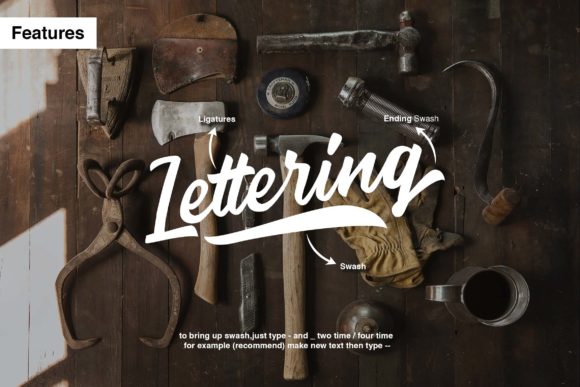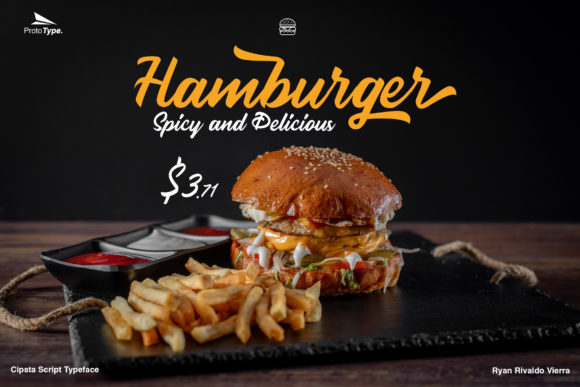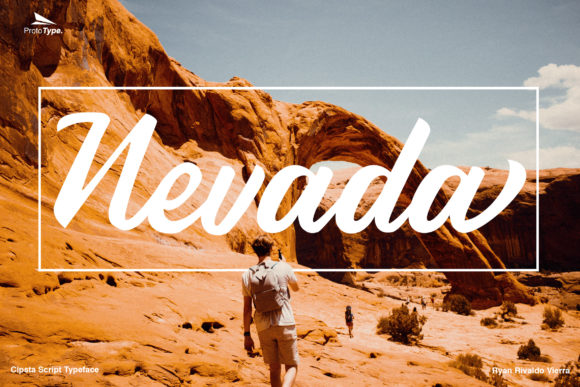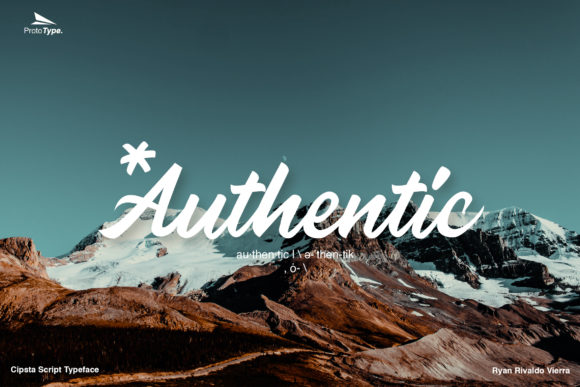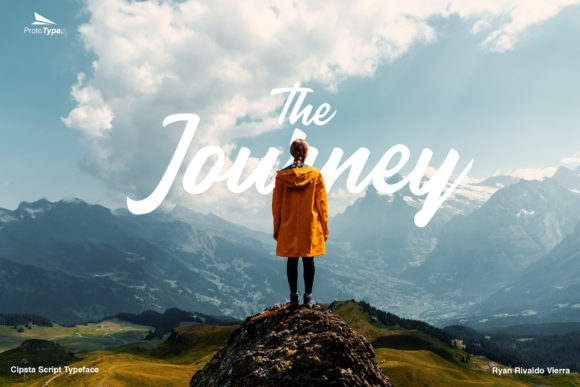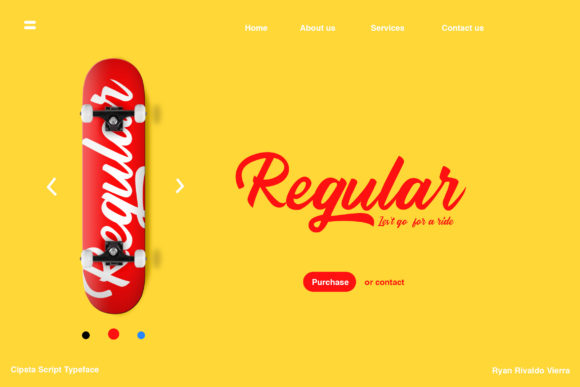
Introduction to Cipsta Scipt Font
Have you ever stared at a blank canvas, feeling the pressure to create something truly remarkable? For designers, this moment is all too familiar. The blank slate can be both exhilarating and intimidating. But what if you had the perfect tool to bring your vision to life?
Enter the Cipsta Scipt Font, a high-quality, flowing handwritten font that adds a touch of luxury to any design project. Whether you’re working on a creative project or simply need a unique design resource, this font is sure to impress. With its PUA encoded features, you’ll have access to a wide range of glyphs and ligatures, making it easy to customize your designs and achieve a transparent background effect that elevates your work to the next level.
Key Features of Cipsta Scipt Font
- Unique, hand-drawn design suitable for creative projects requiring a high-quality, artistic touch.
- Features a transparent background, making it easy to layer over images or other design elements without compromising visual clarity.
- Includes a comprehensive character set, covering a wide range of languages and characters, making it a valuable design resource for multilingual projects.
- Supports a wide range of languages, including Latin, Cyrillic, and Greek scripts, making it an ideal choice for international design projects.
- Can be easily customized to fit specific design requirements, thanks to its modular design and extensive character set.
Honest Review: Cipsta Scipt Font
I recently came across the Cipsta Scipt Font, and I must say it’s a great addition to any design project. This font is perfect for those looking to create a high-quality, creative project with a unique touch.
One of the things that stood out to me about the Cipsta Scipt Font is its beautiful, flowing script. It’s ideal for use on products, websites, and even marketing materials. The transparent background also makes it easy to work with, allowing for seamless integration with any design resource.
Here are some of the things that work well with the Cipsta Scipt Font:
- ✨ Unique and creative design
- ✨ High-quality, professional appearance
- ✨ Easy to use and customize
- ⚠️ Limited font size options
- ⚠️ May not be suitable for all types of projects
Overall, I’m really impressed with the Cipsta Scipt Font. It’s a fantastic design resource that can add a personal touch to any project. I’d definitely recommend it to designers looking for a unique and creative font to use in their designs.
Tips for Getting the Most Out of Cipsta Scipt Font
To get the most out of Cipsta Scipt Font, try combining it with other design elements, such as images and graphics, to create a visually appealing design. You can also experiment with different font sizes, colors, and alignments to achieve the desired look.
Cipsta Scipt Font is a versatile design resource that can be used in a variety of projects, including logos, branding, and creative projects. You can also use it to add a touch of elegance to your presentations, documents, and websites.